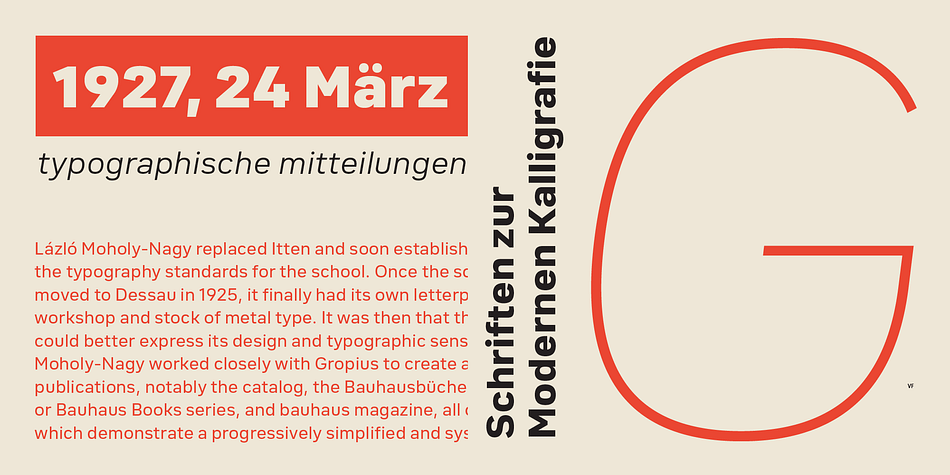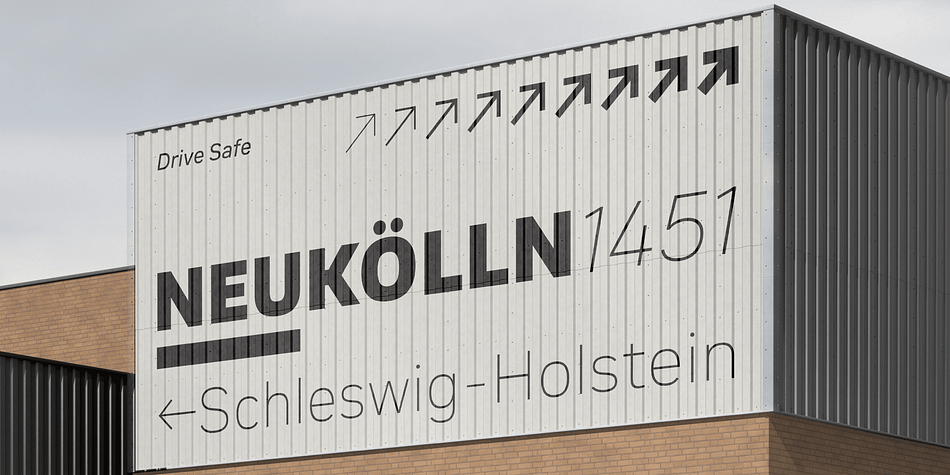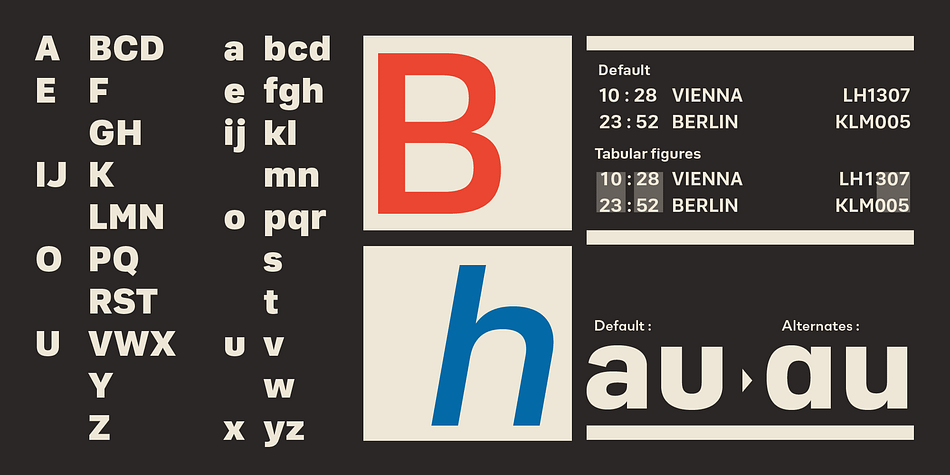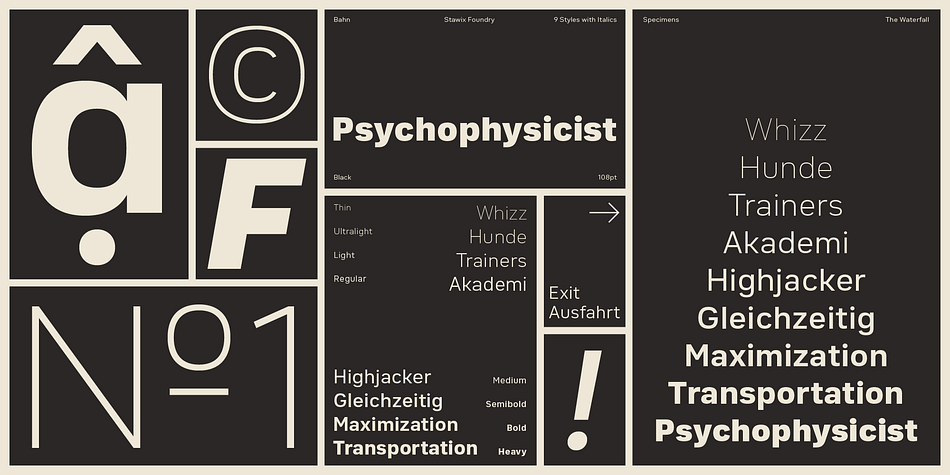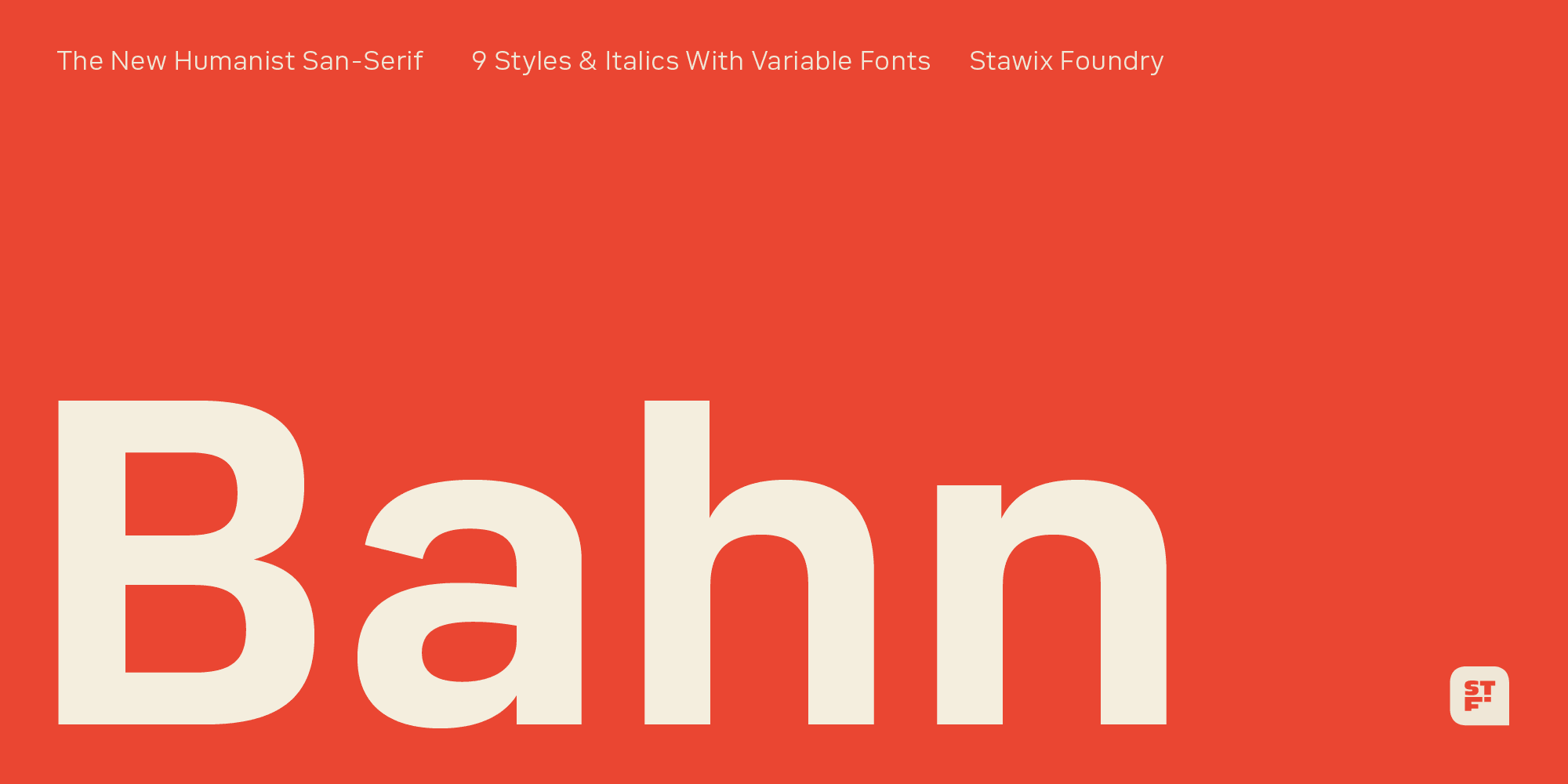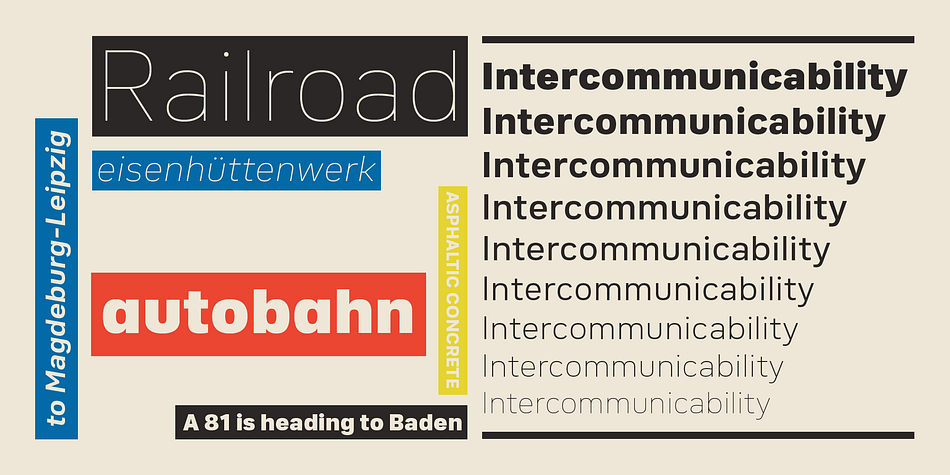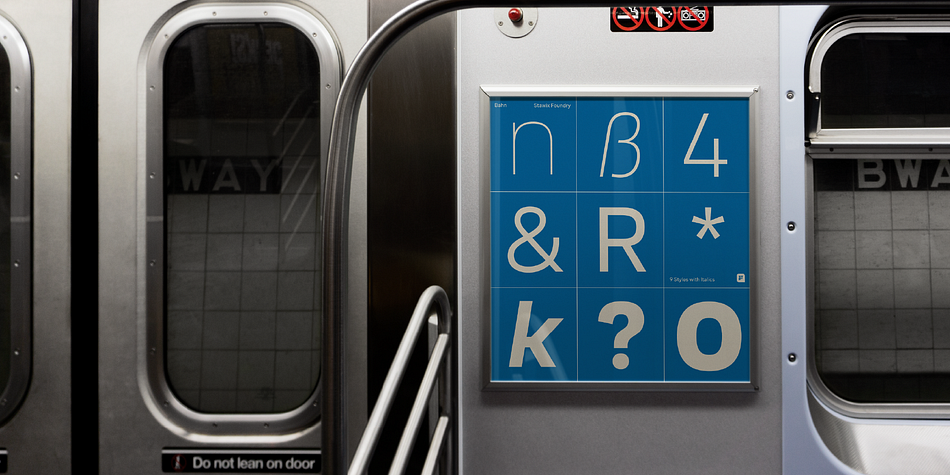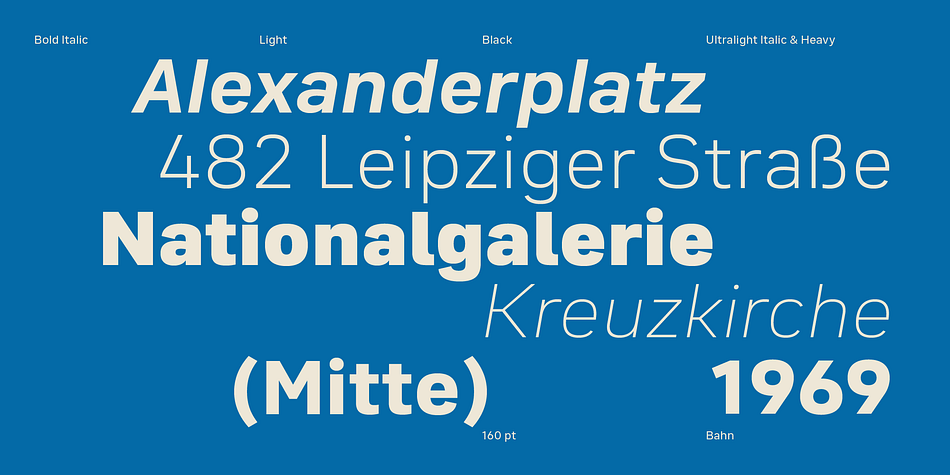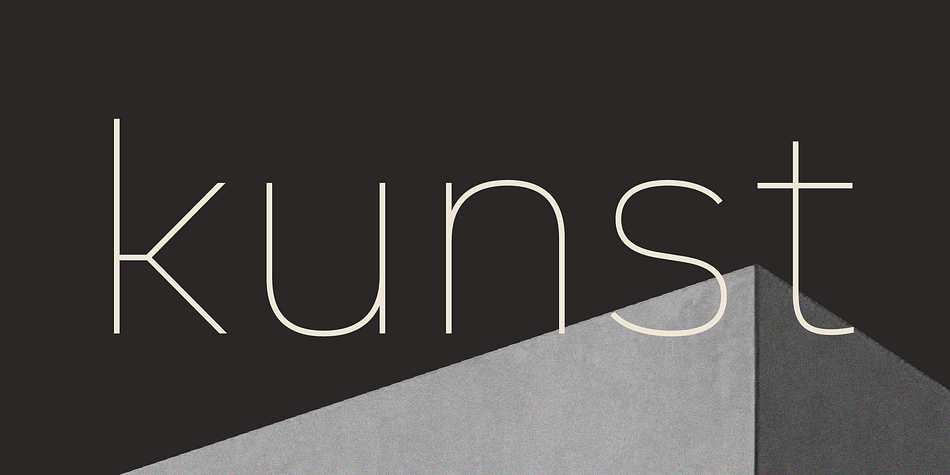
Bahn
Designed by Stawix Ruecha, Bahn is a sans serif font family. This typeface has twenty styles and was published by Stawix.
Bahn is heavily inspired by the sturdiness in the simplicity of the Autobahn together with the German highway typeface DIN 1451. Designed with straight-forward concept, clean and simple, direct and comprehensible. Nevertheless, Bahn still mange to insert the friendliness touch to the character which makes it easy to use and well-suited with other typefaces, letters or in various styles and possibilities of layouts that may occurred in the future.
Bahn comes with 9 weights from the thinnest to the heaviest possible, accompanied with Italics for extensive usage. Not satisfied? Bahn also comes with Variables that will sure suited your needs.